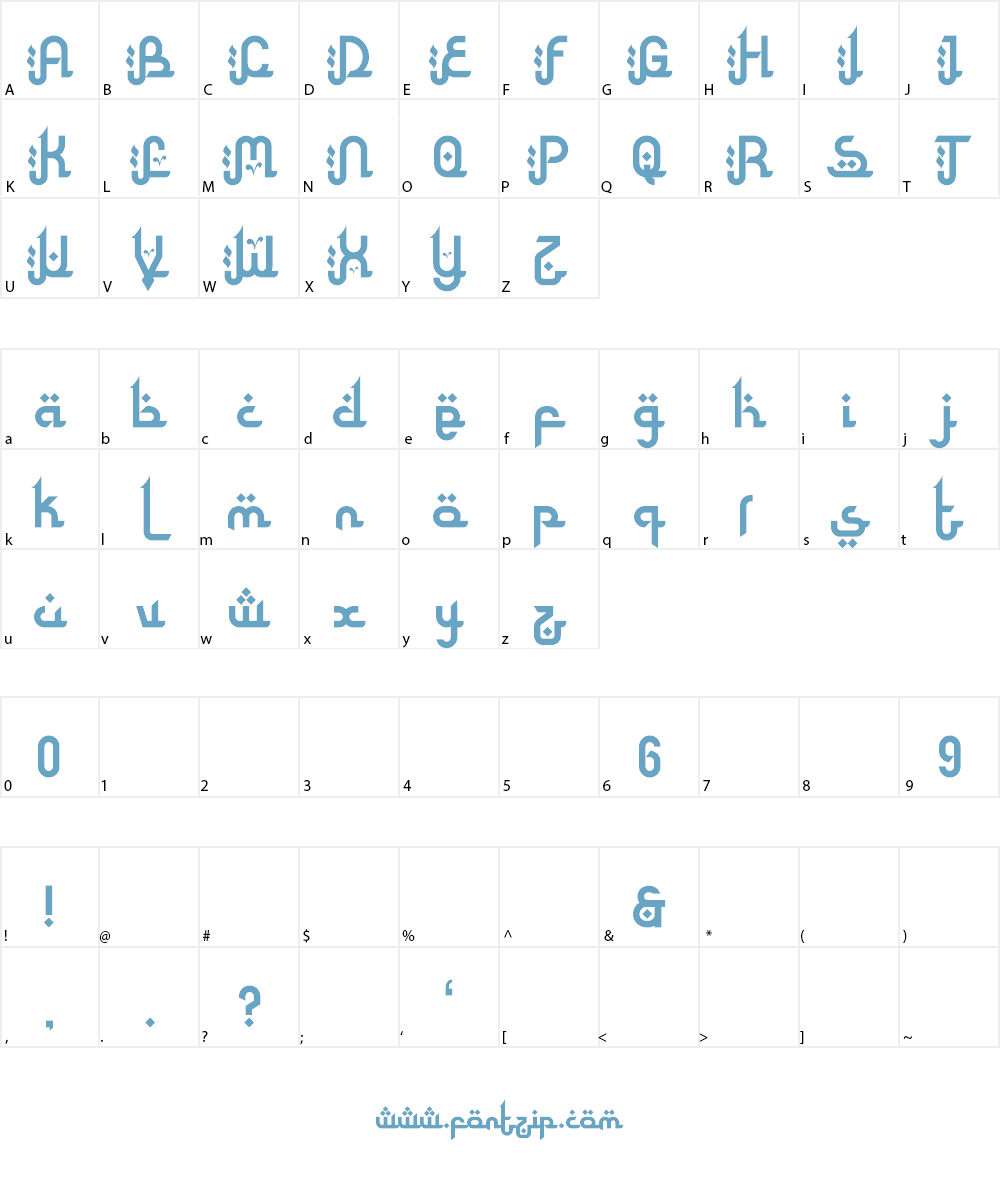
Kahfi is an awesome arabic style typeface. Kahfi makes the Latin letter look like a beautiful Arabic letter.
Kahfi will be the perfect choice for you needs to stand out in a unique Arabic look.